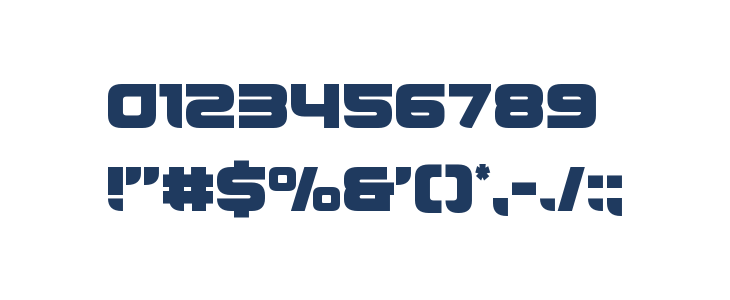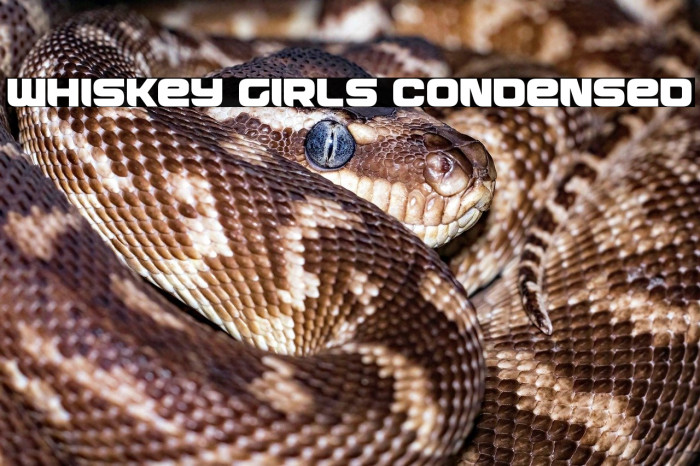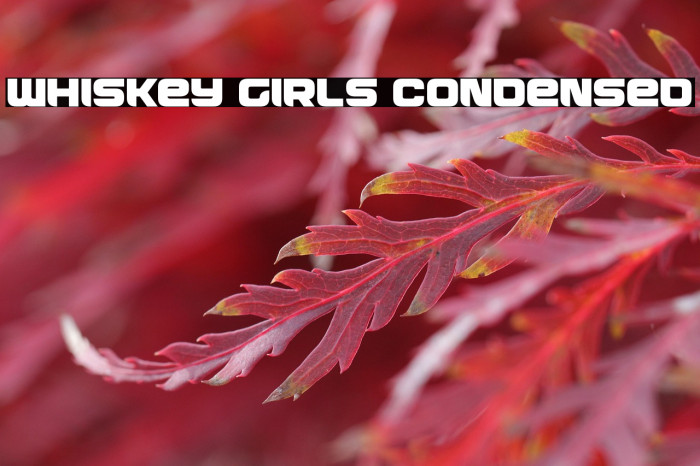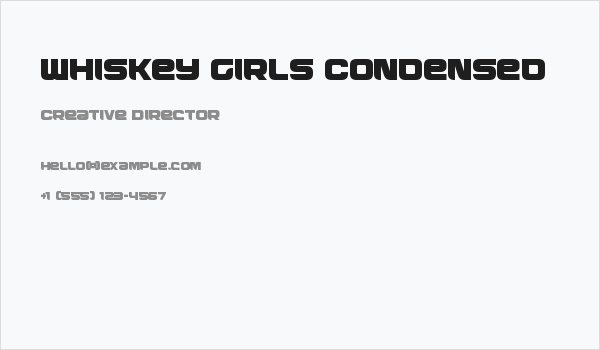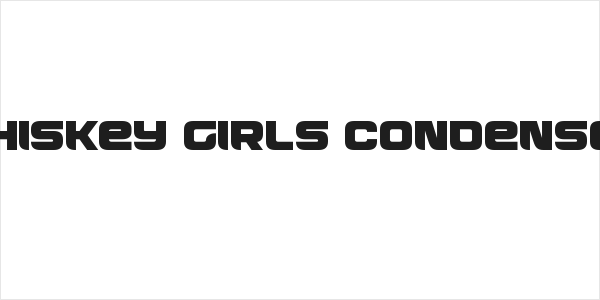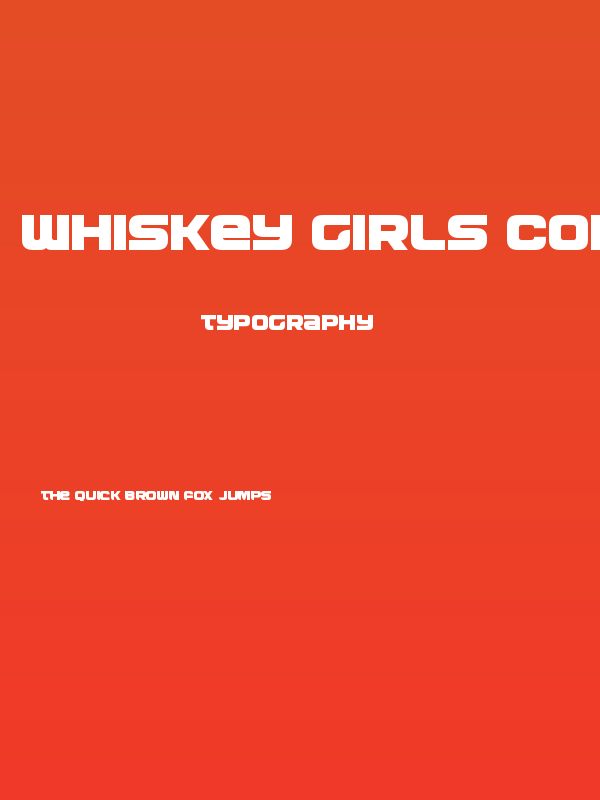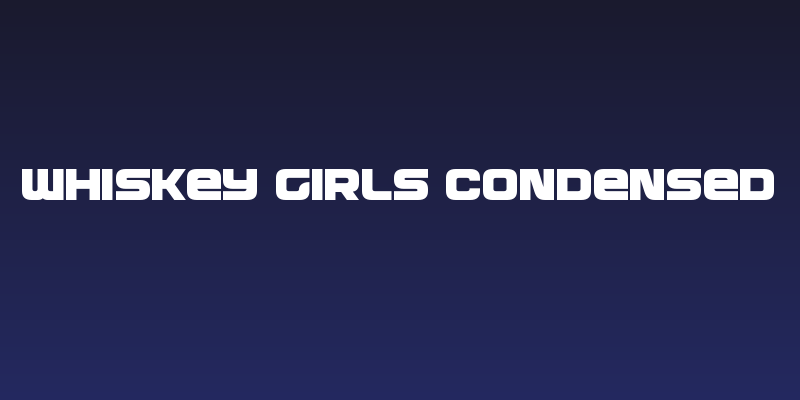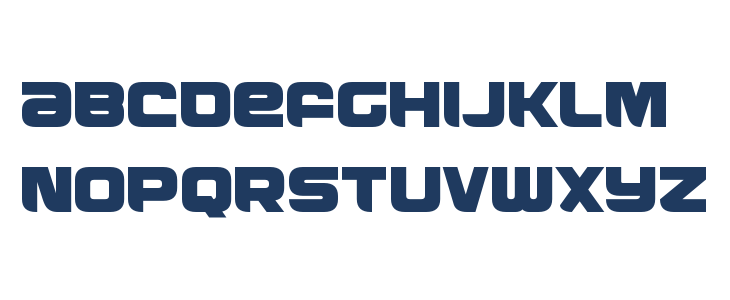
Whiskey Girls Condensed Font
Whiskey Girls Condensed Description
This font features a bold and robust design with a condensed structure, making it ideal for impactful headlines and attention-grabbing text. The characters are uniformly thick, providing a strong visual presence. The uppercase and lowercase letters maintain a consistent style, with rounded edges that soften the overall look. The numerals and special characters are designed to match the boldness of the alphabet, ensuring a cohesive appearance across all text elements. This font's condensed nature allows for efficient use of space without sacrificing readability.